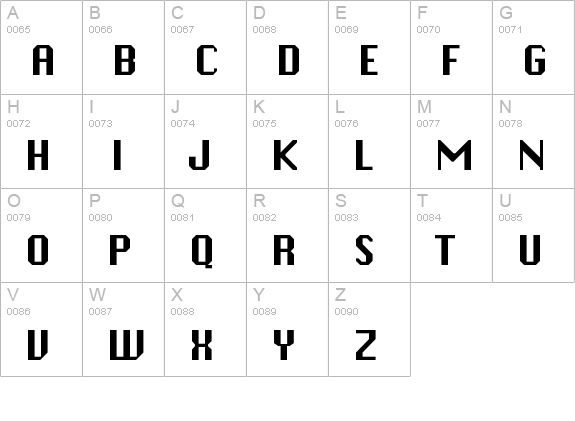
ChicagoLaser Medium Font Details
ChicagoLaser Medium is a balanced, medium-weight variant in the ChicagoLaser typeface family \xE2\x80\x94 well suited to sub-headlines, navigation, and balanced editorial work.
ChicagoLaser Medium font is a sleek and modern typeface that exudes sophistication and style. With its clean lines and sharp edges, this font is perfect for creating eye-catching designs that demand attention. Whether used for headlines, branding, or signage, ChicagoLaser Medium makes a bold statement. What's even better is that ChicagoLaser Medium font is available for free download at FontsMarket.com. This means you can easily add this versatile font to your collection without breaking the bank. Don't miss out on the opportunity to enhance your projects with the distinctive charm of ChicagoLaser Medium font – download it for free today!